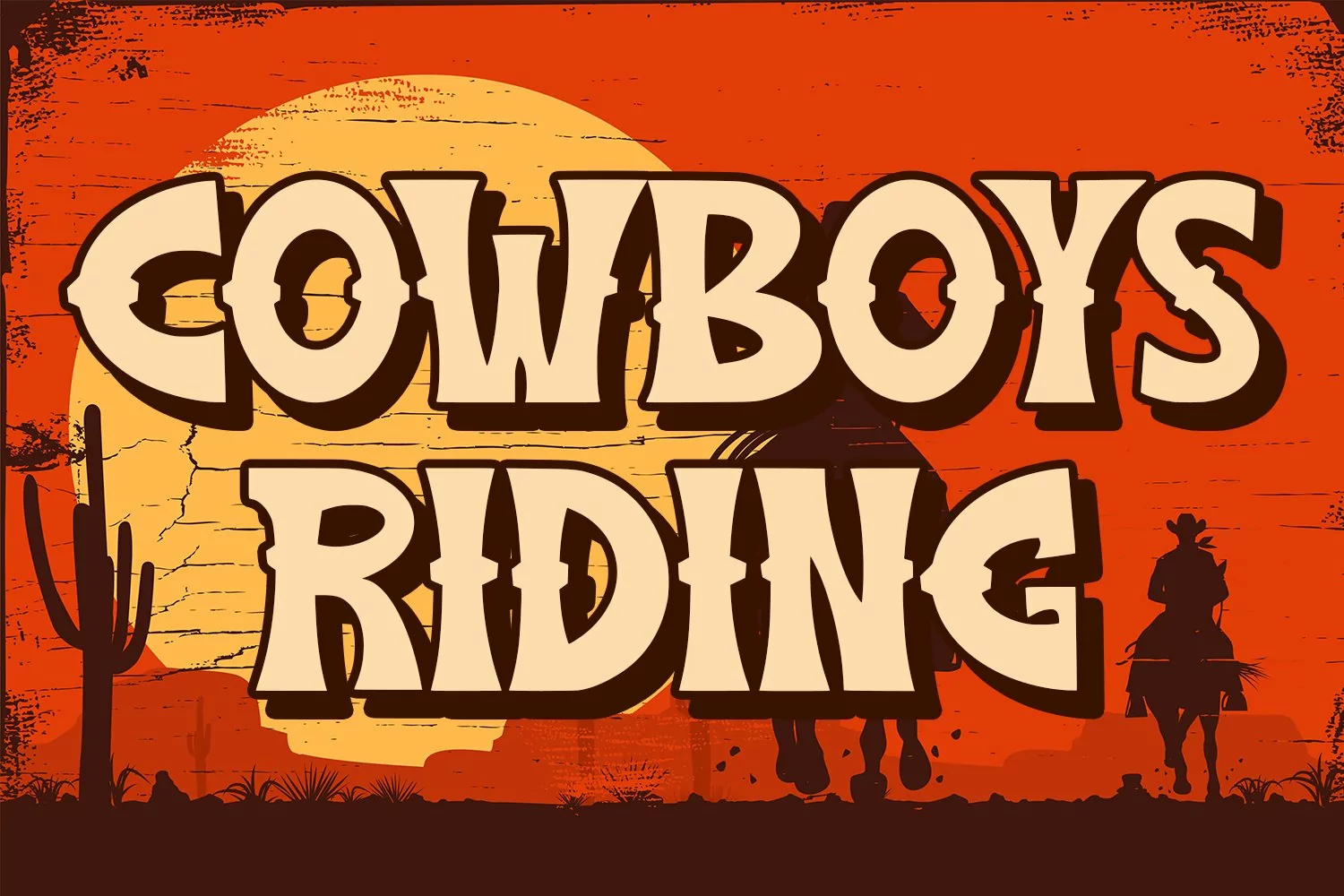
Presenting High Bounty Font - Western Display Font Font for Your Project. A perfect font which can be used for multiple purpose.
3- Super Creative Font.